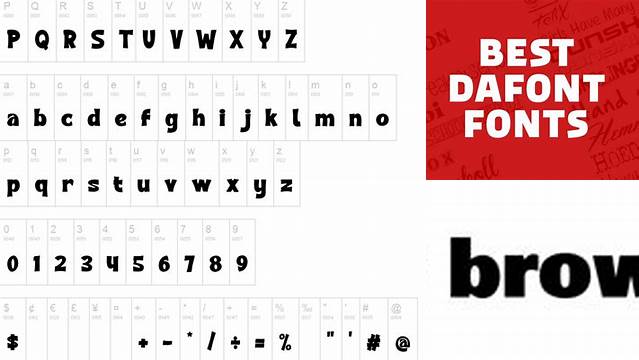
Free Heavy Fonts: Your Guide To Dafont & Beyond
Hey guys! Ever found yourself searching high and low for that perfect font to make your project pop? You know, the one that just screams awesome? Well, you're in the right place. We're diving deep into the world of fonts free net heavy dafont, and trust me, it's a treasure trove. Let's get started!
1. Understanding Free Fonts: What Are They?
So, what exactly are free fonts? Essentially, these are typefaces that you can download and use without having to shell out any cash. They come with different licenses, ranging from personal use to commercial projects. It's super important to check the license before you start using a font, to make sure you're not stepping on any toes. Sites like Dafont are goldmines for finding these freebies, but remember, not all free fonts are created equal. Some are polished and professional, while others might need a little bit of tweaking. Understanding the nuances of free fonts can save you a lot of headaches down the line, especially if you're using them for business purposes. Always double-check those licenses, guys! Seriously, it's worth the extra few minutes.
2. The Appeal of Dafont: Why It's So Popular
Dafont has been around for ages, and for good reason. It's like the OG of free font websites. What makes it so popular? Well, for starters, it's incredibly easy to use. The search function is straightforward, and the fonts are categorized in a way that makes finding what you need a breeze. Plus, they have a massive library. Seriously, you could spend hours browsing through all the different typefaces. But the biggest draw? It's free! Who doesn't love free stuff? Just remember to always double-check the license before using a font, even on Dafont. It's a user-uploaded site, so the licenses can vary wildly. But overall, Dafont is a fantastic resource for anyone looking for fonts free net heavy dafont.
3. Exploring Heavy Fonts: Making a Bold Statement
Alright, let's talk about heavy fonts. These are your bold, attention-grabbing typefaces. They're perfect for headlines, logos, and anything else where you want to make a statement. Think big, chunky letters that command attention. Heavy fonts can add a real sense of power and impact to your designs. But be careful not to overuse them! Too much heavy font can make your design look cluttered and overwhelming. Use them sparingly, and they can be incredibly effective. When searching for fonts free net heavy dafont, be sure to filter your results to show the "heavy" or "bold" styles. You'll find a ton of great options that will help you create a bold and memorable design.
4. Finding Free Fonts on the Net: Beyond Dafont
Dafont is great, but it's not the only game in town. There are tons of other websites where you can find fonts free net heavy dafont. Sites like Google Fonts, Font Squirrel, and Creative Fabrica all offer free font options. Google Fonts is particularly useful because the fonts are designed to work well on the web and are super easy to embed on your website. Font Squirrel focuses on fonts that are licensed for commercial use, which is a big plus. And Creative Fabrica often has freebies available as part of their promotions. So, don't limit yourself to just one website. Explore different resources and find the perfect font for your project. The more you explore, the better chance you have of finding something truly unique.
7. Using Heavy Fonts in Logos: Branding Essentials
Heavy fonts are awesome for logos. They can create a strong and memorable brand identity. Think about some of the most recognizable logos out there. Many of them use bold, heavy fonts to convey a sense of power and authority. When using heavy fonts in logos, consider the overall message you want to communicate. A heavy font can be great for a company that wants to project strength and reliability. But it might not be the best choice for a brand that wants to appear friendly and approachable. Choose a font that aligns with your brand values and target audience. And remember to keep it simple! A well-designed logo with a heavy font can be incredibly effective. Finding the right fonts free net heavy dafont can make all the difference in your branding efforts.
8. Creating Eye-Catching Headlines with Heavy Fonts
Headlines are your chance to grab attention and draw readers in. And heavy fonts are a great way to do that. They stand out on the page and make a statement. When using heavy fonts in headlines, make sure the font is legible and easy to read. Don't choose a font that's too decorative or stylized. You want people to be able to read your headline quickly and easily. Also, consider the overall tone of your headline. A heavy font can convey a sense of urgency or importance. So, use it wisely. With the right fonts free net heavy dafont, you can create headlines that are impossible to ignore.
9. Mixing and Matching Fonts: A Design Balancing Act
Mixing fonts can be tricky, but when done right, it can add a lot of visual interest to your designs. The key is to create a balance between different fonts. You don't want them to clash or compete with each other. A good rule of thumb is to pair a heavy font with a lighter, more subtle font. This creates a contrast that is visually appealing. For example, you could use a heavy font for your headlines and a lighter font for your body text. Experiment with different combinations and see what works best for your project. Finding the perfect balance between different fonts free net heavy dafont can take some practice, but it's worth the effort.
10. Font Pairing Tips: Complementing Heavy Fonts
When pairing heavy fonts, think about fonts that offer contrast. A light and airy sans-serif font often complements a bold, heavy serif font. Consider the x-height of the fonts as well; fonts with similar x-heights tend to pair well together. Resources like FontPair and Typewolf can provide excellent inspiration for font pairings. Don't be afraid to experiment, but always ensure that the fonts enhance readability and don't distract from your message. Good font pairing elevates the overall design and makes it more professional. Exploring fonts free net heavy dafont for pairing options can open up a whole new world of design possibilities.
11. Designing Posters with Free Heavy Fonts
Posters demand attention, and heavy fonts are perfect for making bold statements. Use them for headlines and key messages to grab the viewer's eye. Ensure the font is legible from a distance, and consider the overall color scheme to ensure the font stands out. Heavy fonts can be especially effective in minimalist designs, where the font itself becomes a focal point. Sites like Dafont offer a variety of free heavy fonts ideal for poster design, but remember to check the license before using them for commercial purposes. The right fonts free net heavy dafont can transform a simple poster into an eye-catching masterpiece.
12. The Psychology of Heavy Fonts: What They Convey
Heavy fonts often convey strength, power, and authority. They can create a sense of importance and urgency. In branding, they can communicate reliability and stability. However, overusing heavy fonts can make a design feel overwhelming or aggressive. It's essential to consider the psychological impact of your font choices and ensure they align with the message you want to convey. Experimenting with fonts free net heavy dafont allows you to understand how different typefaces evoke different emotions and perceptions.
13. Font Weight and Its Impact on Readability
Font weight plays a significant role in readability. While heavy fonts are great for headlines, they can be tiring to read in large blocks of text. Lighter font weights are generally preferred for body text as they are easier on the eyes. When using heavy fonts, ensure there is enough contrast with the background to improve legibility. Also, consider the font size and spacing to optimize the reading experience. Balancing font weight is crucial for creating designs that are both visually appealing and readable. Exploring various fonts free net heavy dafont helps you find the perfect balance for your project.
14. Using Heavy Fonts in Web Design: Best Practices
In web design, heavy fonts can be used to create visual hierarchy and draw attention to key elements. Use them sparingly for headlines, calls to action, and important information. Ensure the font is web-safe and loads quickly to avoid slowing down your website. Consider using CSS to control font weight and size for different screen sizes. It's also important to test the font on various browsers and devices to ensure it renders correctly. The right fonts free net heavy dafont can enhance your website's visual appeal and improve user engagement.
15. Pairing Heavy Fonts with Script Fonts: A Delicate Balance
Pairing heavy fonts with script fonts can create an elegant and eye-catching design, but it requires careful consideration. The contrast between the bold weight of the heavy font and the flowing curves of the script font can create a harmonious balance. Use the script font sparingly, perhaps for a subheading or a call-to-action, while using the heavy font for the main headline. Ensure that both fonts share a common characteristic, such as a similar x-height or style, to create a cohesive look. Experimenting with fonts free net heavy dafont helps you discover unique pairings that elevate your design.
16. Free Heavy Fonts for Commercial Use: What to Look For
Finding free heavy fonts for commercial use requires careful attention to licensing. Sites like Font Squirrel and Google Fonts offer many fonts that are licensed for commercial purposes. Always double-check the license agreement to ensure you are complying with the terms. Look for fonts that are clearly marked as "free for commercial use" to avoid any legal issues. It's also a good idea to keep a record of the font licenses for your projects. With a little research, you can find fantastic fonts free net heavy dafont that are perfect for your business needs.
17. The Evolution of Heavy Fonts: From Print to Digital
Heavy fonts have a rich history, evolving from their origins in print to their widespread use in digital media. In the past, heavy fonts were primarily used in posters and advertising to grab attention. Today, they are used in a wide range of applications, from web design to branding. The evolution of technology has made it easier to create and distribute heavy fonts, leading to a greater variety of styles and options. Exploring fonts free net heavy dafont allows you to appreciate the historical context and the modern applications of these versatile typefaces.
18. How to Identify High-Quality Free Heavy Fonts
Identifying high-quality free heavy fonts involves looking for several key characteristics. Check for consistency in letterforms, kerning, and spacing. A well-designed font will have smooth curves and clean lines. Also, consider the font's versatility and whether it can be used in a variety of applications. Read reviews and see how other designers have used the font. A high-quality font will be well-documented and come with a clear license agreement. When searching for fonts free net heavy dafont, take the time to evaluate the quality to ensure you are using the best possible typeface for your project.
19. The Role of Kerning in Heavy Font Design
Kerning, the adjustment of space between individual letters, is crucial in heavy font design. Because heavy fonts have more visual weight, improper kerning can lead to letters appearing too close together or too far apart, impacting readability. Designers often need to manually adjust kerning in heavy fonts to achieve a balanced and professional look. Pay close attention to kerning when choosing and using heavy fonts to ensure your text is legible and visually appealing. Exploring fonts free net heavy dafont with good kerning can save you significant time and effort in your design projects.
20. Choosing the Right Heavy Font for Your Project's Tone
Selecting the right heavy font depends heavily on the tone and message of your project. A geometric heavy font might convey modernity and efficiency, while a more ornate heavy font could suggest luxury or tradition. Consider your target audience and the overall aesthetic you want to achieve. Is your project serious and professional, or playful and creative? The right heavy font can reinforce your message and create a cohesive brand identity. Experimenting with different fonts free net heavy dafont helps you find the perfect typeface that aligns with your project's tone.
21. Avoiding Common Mistakes When Using Heavy Fonts
Several common mistakes can undermine the effectiveness of heavy fonts. Overusing them can make a design feel cluttered and overwhelming. Neglecting kerning can lead to poor readability. Pairing them with incompatible fonts can create a jarring visual effect. Ensure that your heavy font aligns with your brand's message and target audience. Always double-check the license to avoid legal issues. By avoiding these common mistakes, you can use fonts free net heavy dafont to create stunning and impactful designs.
22. Free Heavy Fonts for Mobile App Design: Considerations
When using heavy fonts in mobile app design, consider the limited screen size and the need for optimal readability. Choose fonts that are clear and legible even at smaller sizes. Ensure that the font contrasts well with the background to improve visibility. Use heavy fonts sparingly for headlines and key UI elements to draw attention without overwhelming the user. Test the font on different devices and screen resolutions to ensure it renders correctly. The right fonts free net heavy dafont can enhance your app's visual appeal and improve user experience.
23. Creating a Visual Hierarchy with Heavy Fonts
Heavy fonts are excellent tools for creating a visual hierarchy in your designs. Use them to emphasize important elements such as headlines, subheadings, and calls to action. By making these elements visually prominent, you guide the viewer's eye and help them understand the structure of your content. Use lighter font weights for less important information to create a clear contrast. A well-defined visual hierarchy makes your design more engaging and effective. Exploring fonts free net heavy dafont allows you to experiment with different levels of emphasis and create a balanced and visually appealing layout.
24. Heavy Fonts and Accessibility: Ensuring Inclusivity
When using heavy fonts, it's crucial to consider accessibility to ensure your designs are inclusive to all users. Choose fonts that are easy to read, even for people with visual impairments. Ensure there is sufficient contrast between the font and the background. Avoid using heavy fonts in large blocks of text, as they can be tiring to read. Consider using font scaling options to allow users to adjust the text size to their preference. By prioritizing accessibility, you can create designs that are both visually appealing and user-friendly. Exploring fonts free net heavy dafont with accessibility in mind helps you create inclusive designs.
25. Free Heavy Fonts for Social Media Graphics: Engagement Boosters
In the fast-paced world of social media, heavy fonts can help your graphics stand out and grab attention. Use them for headlines and key messages to make a bold statement. Ensure the font is legible on small screens and in various lighting conditions. Consider using bright colors and bold contrasts to enhance visibility. Experiment with different fonts to find one that aligns with your brand's personality. The right fonts free net heavy dafont can significantly boost engagement and help your social media content make a lasting impression.
26. The Future of Heavy Fonts: Trends and Predictions
The future of heavy fonts is likely to be shaped by emerging trends in design and technology. We can expect to see more variable fonts that offer greater flexibility in weight and style. AI-powered font design tools may make it easier to create custom heavy fonts. The increasing emphasis on accessibility will drive the development of more readable and inclusive heavy fonts. As design continues to evolve, heavy fonts will remain a powerful tool for creating impactful and visually appealing designs. Keeping an eye on fonts free net heavy dafont will allow you to anticipate and embrace these exciting developments.
27. Font Management Tools: Organizing Your Free Heavy Fonts
With so many free heavy fonts available, it's essential to have effective font management tools to keep them organized. Font management software allows you to preview, activate, and deactivate fonts as needed. They also help you avoid font conflicts and ensure consistent font usage across your projects. Some popular font management tools include FontBase, NexusFont, and RightFont. Investing in font management software can save you time and frustration, especially when working with a large collection of fonts free net heavy dafont.
28. Creating a Unique Brand Identity with Heavy Fonts
Heavy fonts can play a significant role in creating a unique and memorable brand identity. Choose a font that reflects your brand's personality and values. Use it consistently across all your marketing materials, from your logo to your website to your social media graphics. Consider creating a custom heavy font that is exclusive to your brand. A well-chosen heavy font can help you stand out from the competition and create a lasting impression on your target audience. Exploring fonts free net heavy dafont can inspire you to create a distinctive and impactful brand identity.
29. The Importance of Testing Heavy Fonts Before Implementation
Before implementing a heavy font across your design projects, it's crucial to test it thoroughly. Test the font on different devices and screen sizes to ensure it renders correctly. Check for any kerning issues or readability problems. Get feedback from others to see how they perceive the font. Testing allows you to identify and address any potential issues before they impact your final design. By taking the time to test fonts free net heavy dafont, you can ensure that they enhance your project and achieve the desired effect.
30. Resources for Staying Updated on Free Heavy Font Releases
Staying updated on the latest free heavy font releases can help you discover new and exciting typefaces for your projects. Subscribe to newsletters from font foundries and design blogs. Follow font designers and typography experts on social media. Regularly visit websites like Dafont, Font Squirrel, and Google Fonts to see what's new. By staying informed, you can expand your font library and stay ahead of the curve in design trends. Regularly checking resources for fonts free net heavy dafont will keep your designs fresh and innovative.